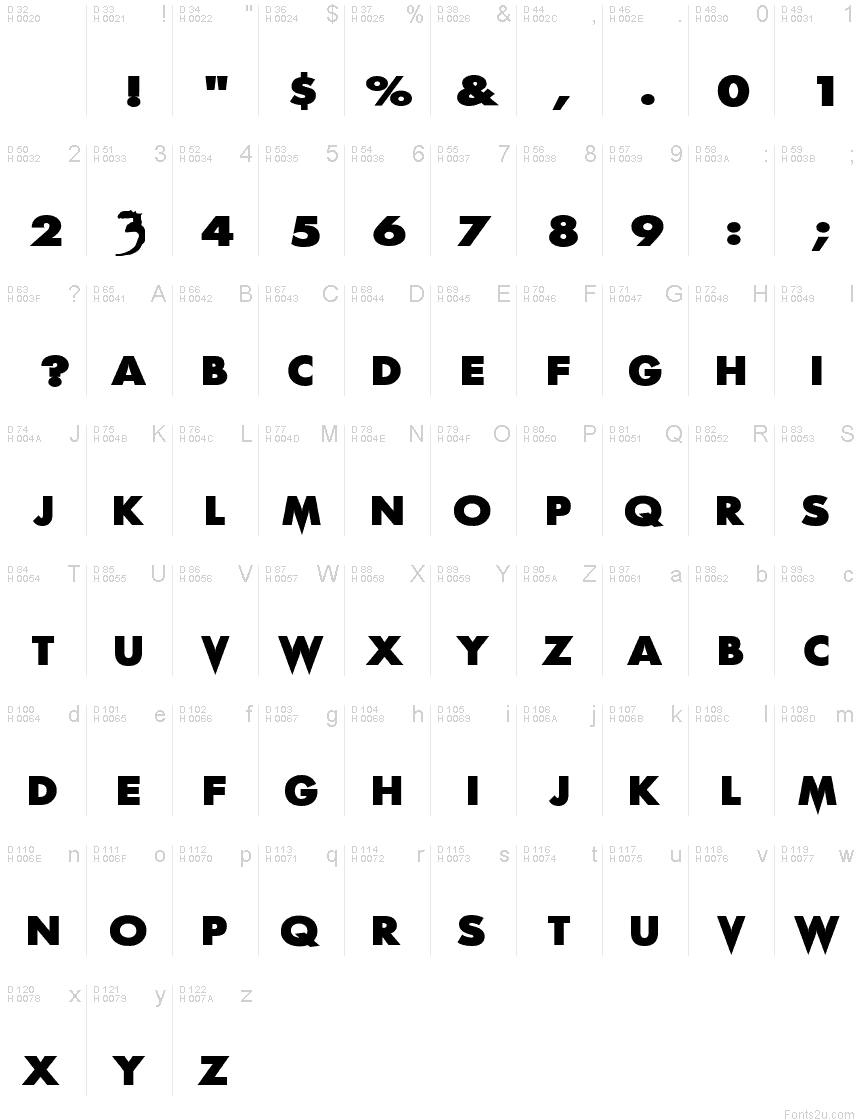
Scream Real
Scream Real by Thomas W. Otto is a free modern movie-display font with big, blocky caps that feel cut for a screen title. The letters are wide and blunt, with broad curves, square corners, and deep notches that give the alphabet a hard, poster-driven rhythm.
It fits naturally in film posters, streaming thumbnails, cover lines, title cards, and game branding where short words need a loud silhouette. As a free font, it also works well for trailer-style headers, event graphics, and monograms, especially when you want the caps to feel hefty and a little severe without slipping into retro sci-fi.